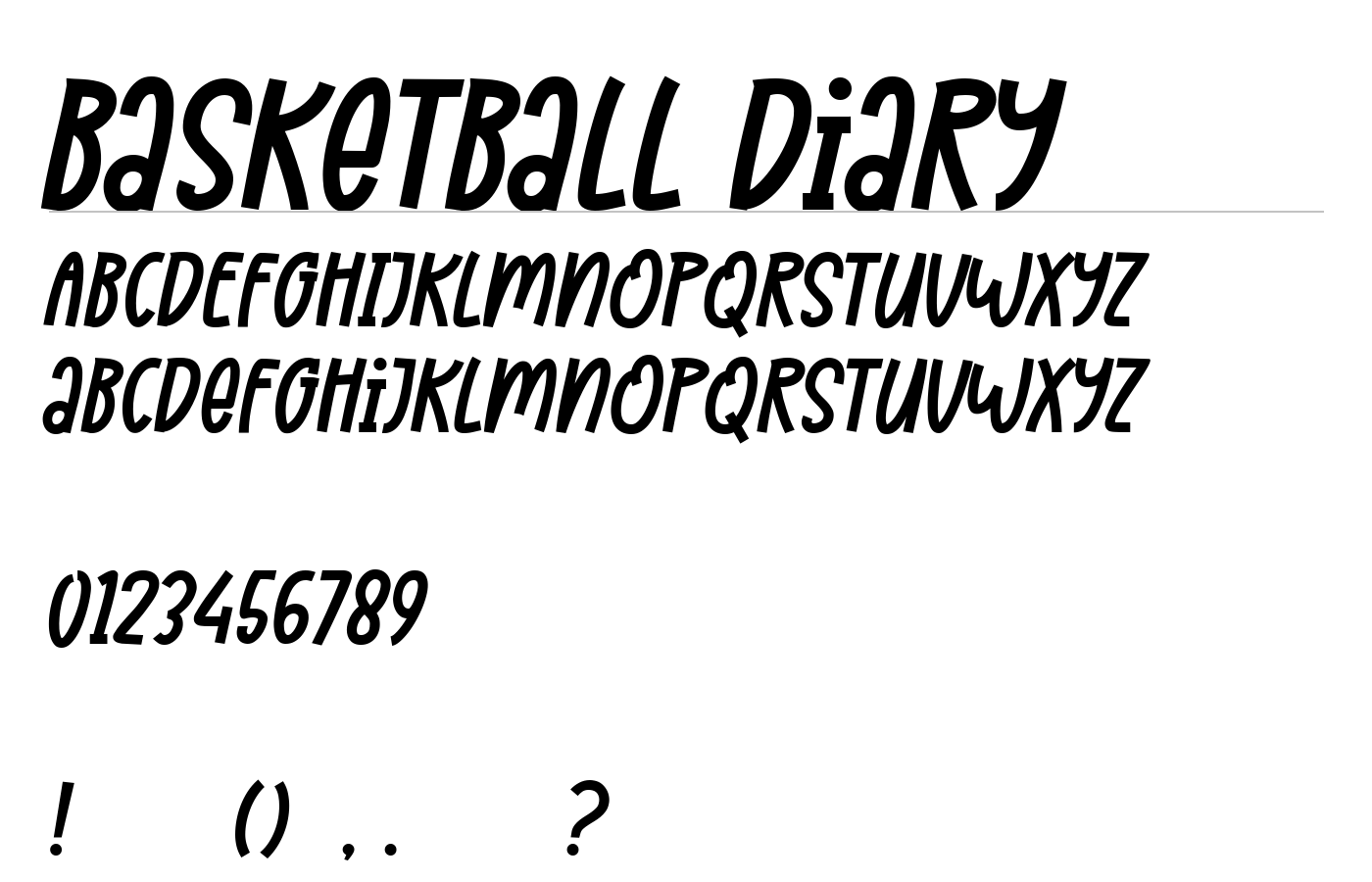
Basketball Diary is a lively, condensed sans serif font with a playful, hand-drawn feel characterized by its irregular letterforms and slight forward slant. Its bold stroke weight and quirky detailing make it perfect for energetic, casual designs such as sports branding, youth-oriented posters, and dynamic headlines. This font’s unique style adds personality and movement, making it ideal for creative projects that want to convey fun and excitement.
Basketball Diary Font
About Basketball Diary Font
| Font family | Basketball Diary Font |
| Designer | Aldy F S |